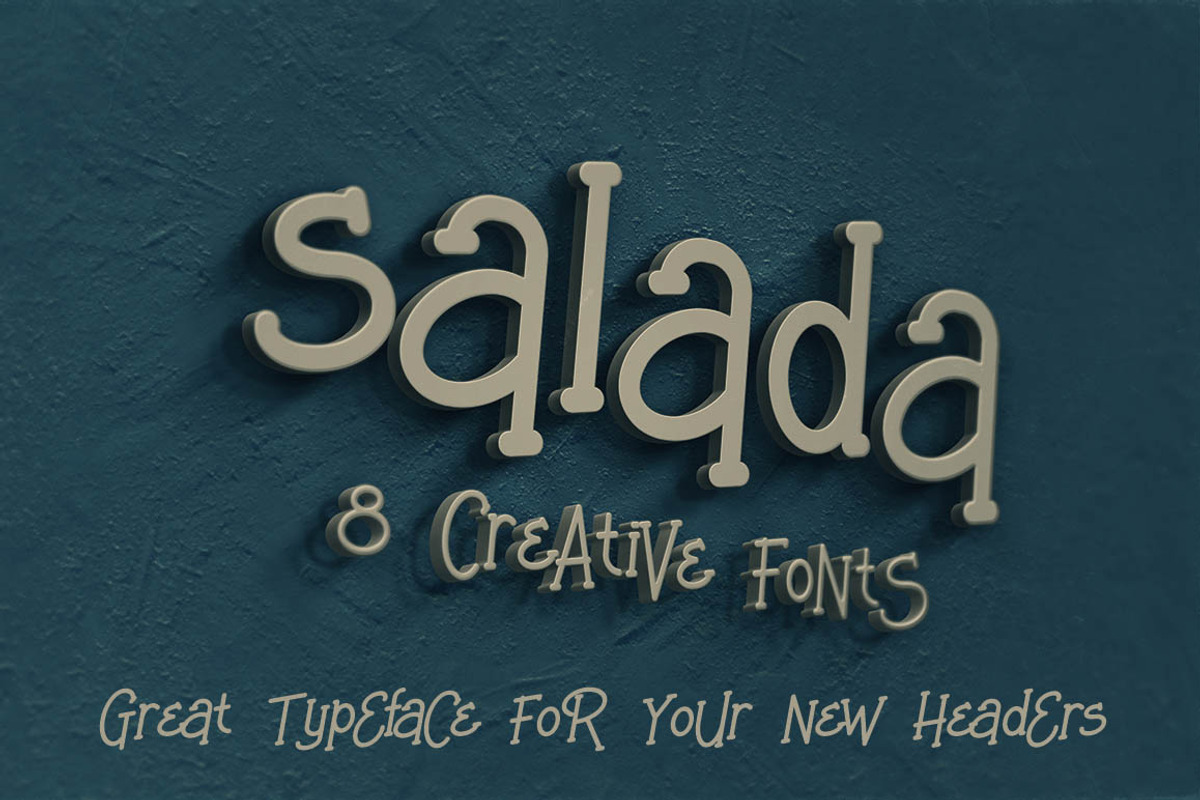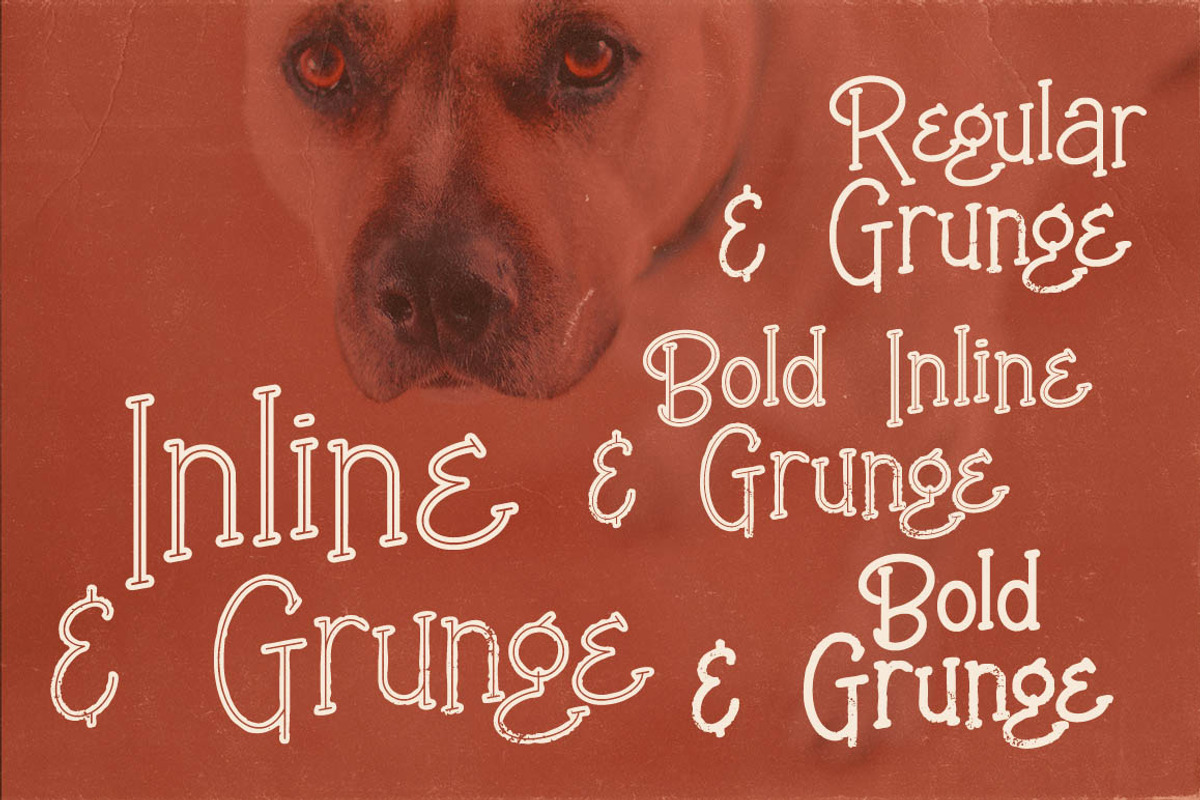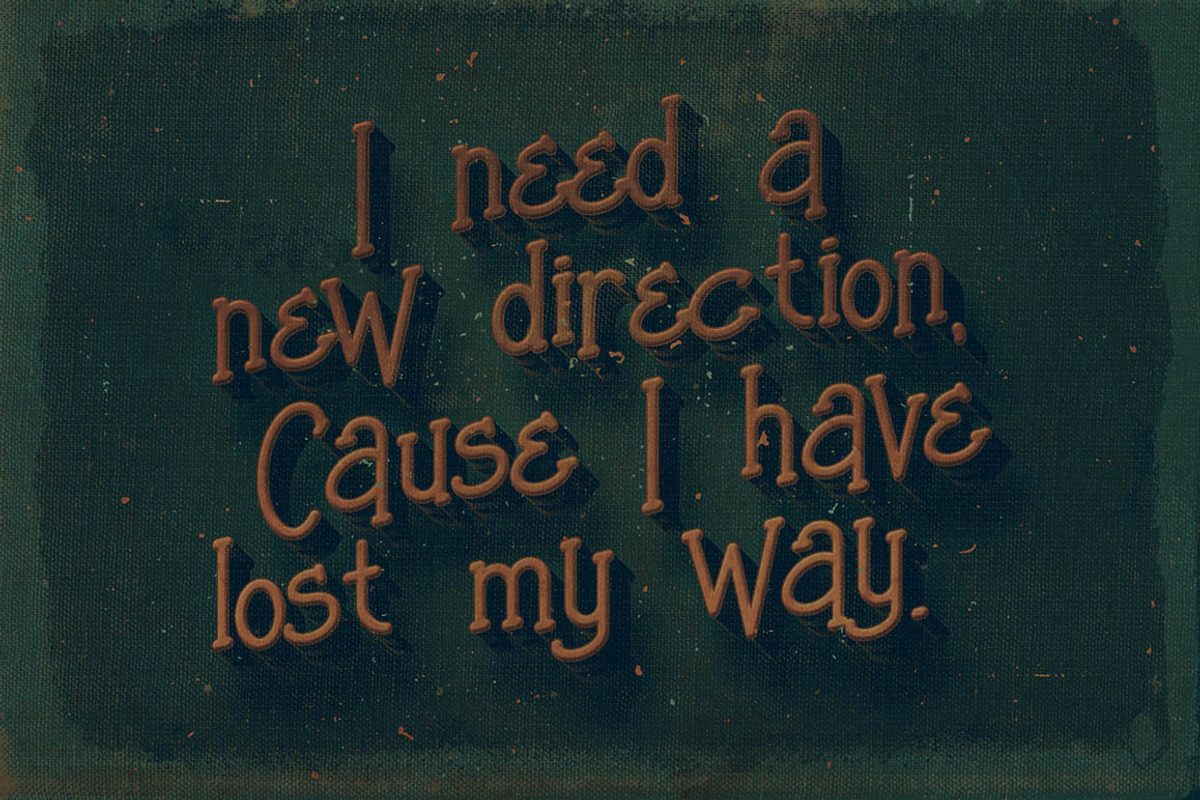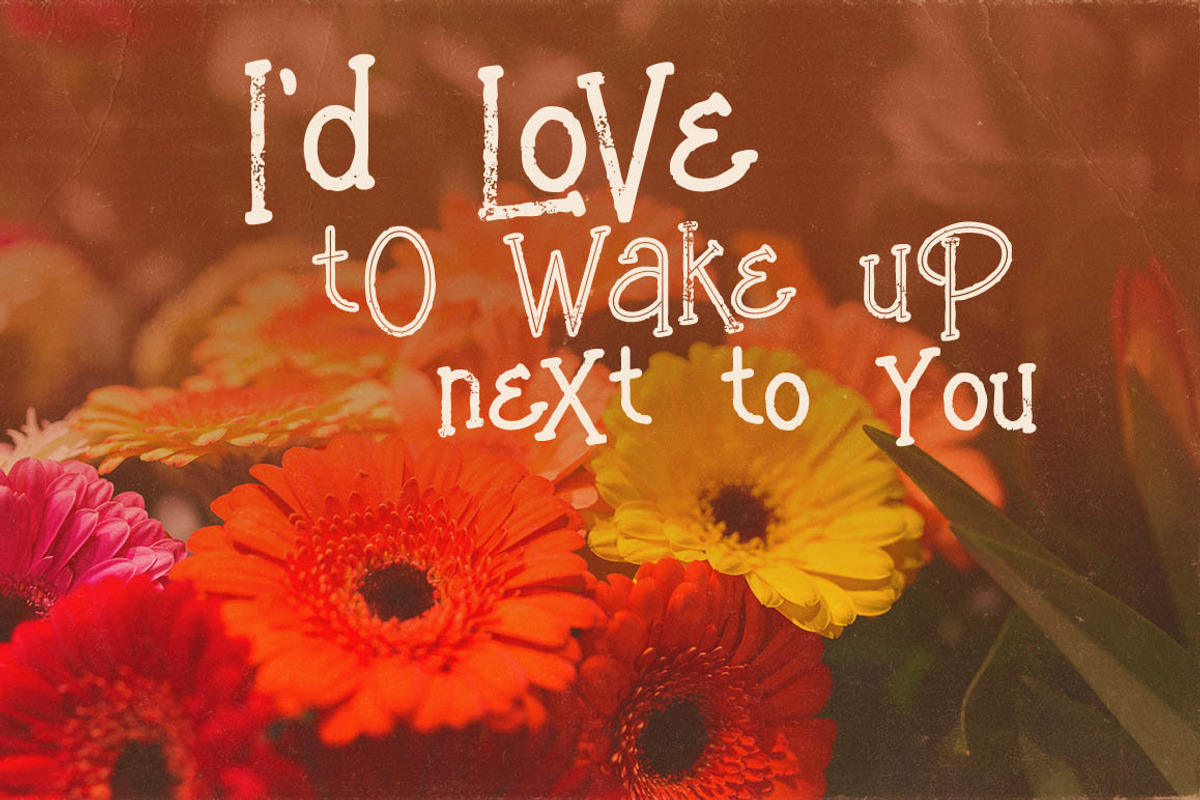
Salada - Funny Style Font
Salada - Funny Style Font by JumboDesign is a font selected for branding, posters, packaging, typography.
Why Salada - Funny Style Font is worth a look
Salada - Funny Style Font by JumboDesign fits naturally into Branding, posters, packaging, typography.